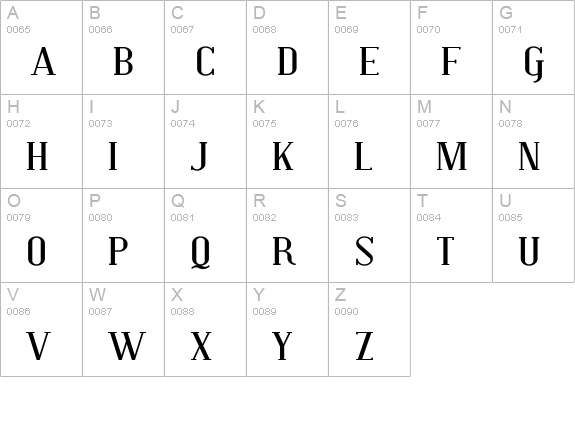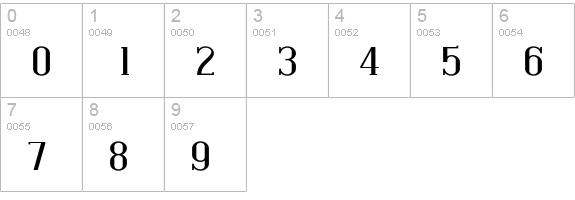
Covington Exp Font Details
Covington Exp font is a beautifully crafted typeface that exudes elegance and sophistication. With its elongated letterforms and stylish curves, this font is perfect for adding a touch of refinement to any design project. The slender and graceful strokes of Covington Exp font make it ideal for creating eye-catching headlines, logos, and branding materials. What makes Covington Exp font even more appealing is that it is available for free download at FontsMarket.com. This means you can easily access this exquisite font without any cost, allowing you to elevate your designs without breaking the bank. Whether you're working on a professional project or a personal creative endeavor, Covington Exp font is sure to impress with its timeless appeal and versatility. Download it today and add a touch of sophistication to your designs!